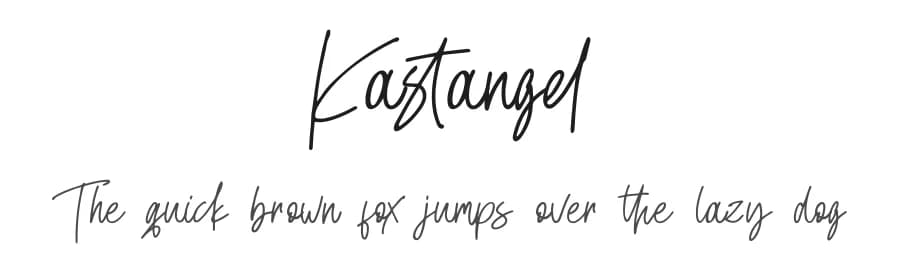
About Kastangel Font
Kastangel Font is a script font that shines as a display or heading face. Pair it with a clean sans-serif or serif font for body text β the contrast creates a clear hierarchy while the two styles stay balanced and easy to read.
Kastangel Font